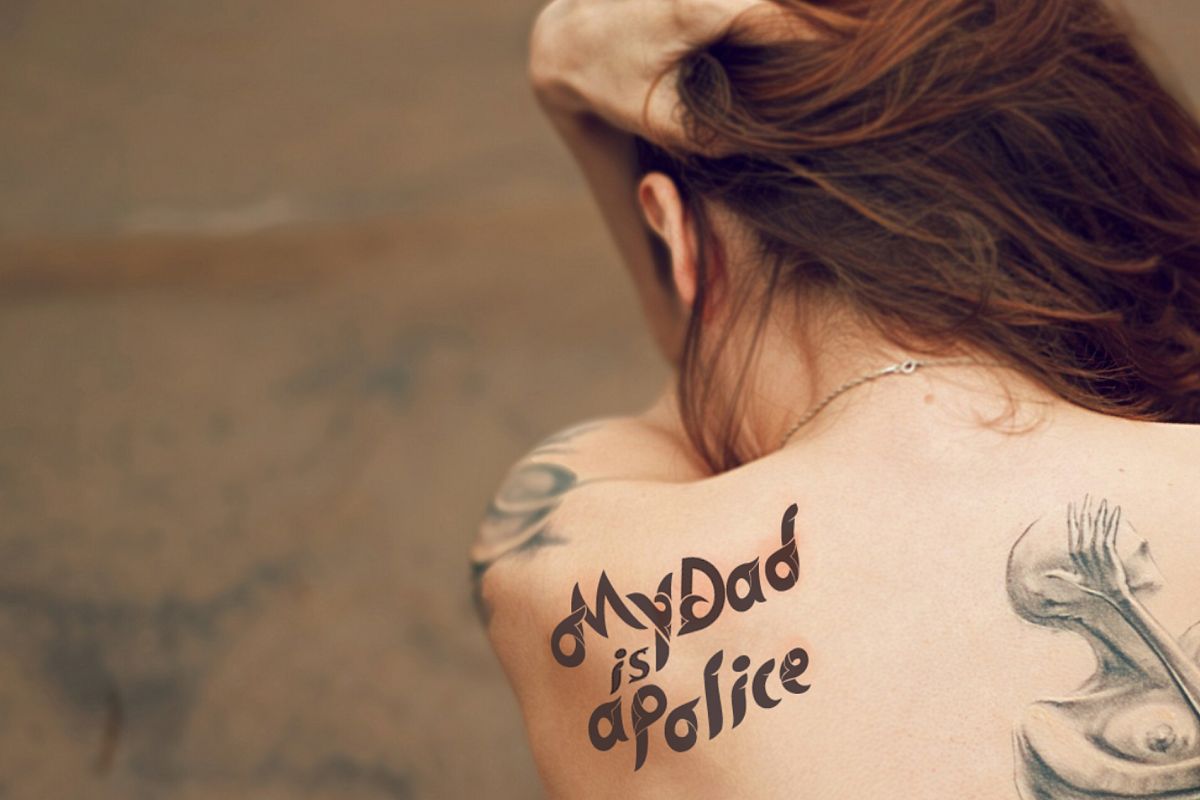
Tribal Tattoo Font
folka-Regular
I am pleased to present to you my font. A unique font that Suitable for Tattoos, and also suitable for your wedding invitations, greeting cards, party invitations, art project & posters, birthday projects and more.